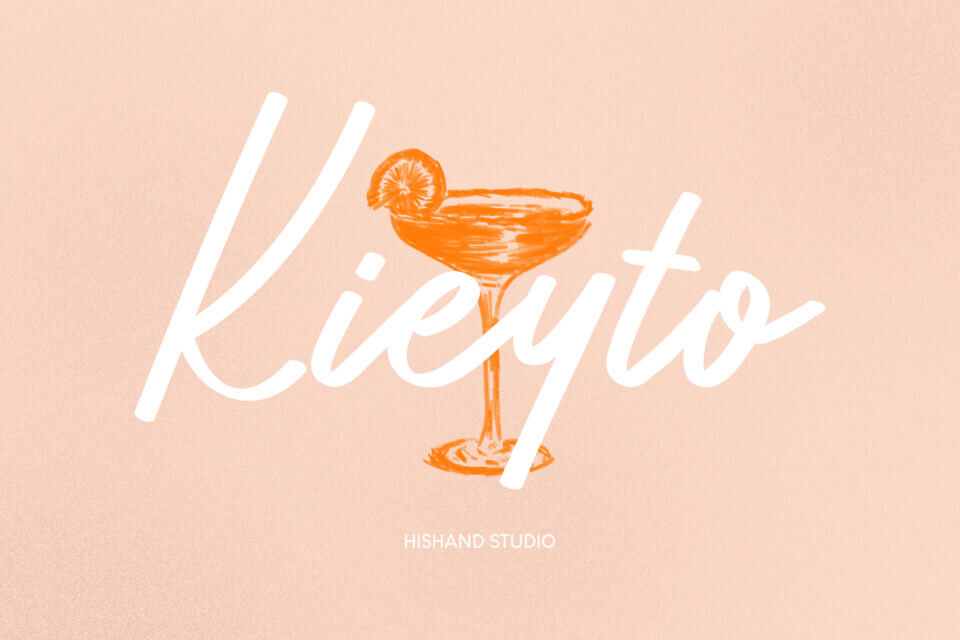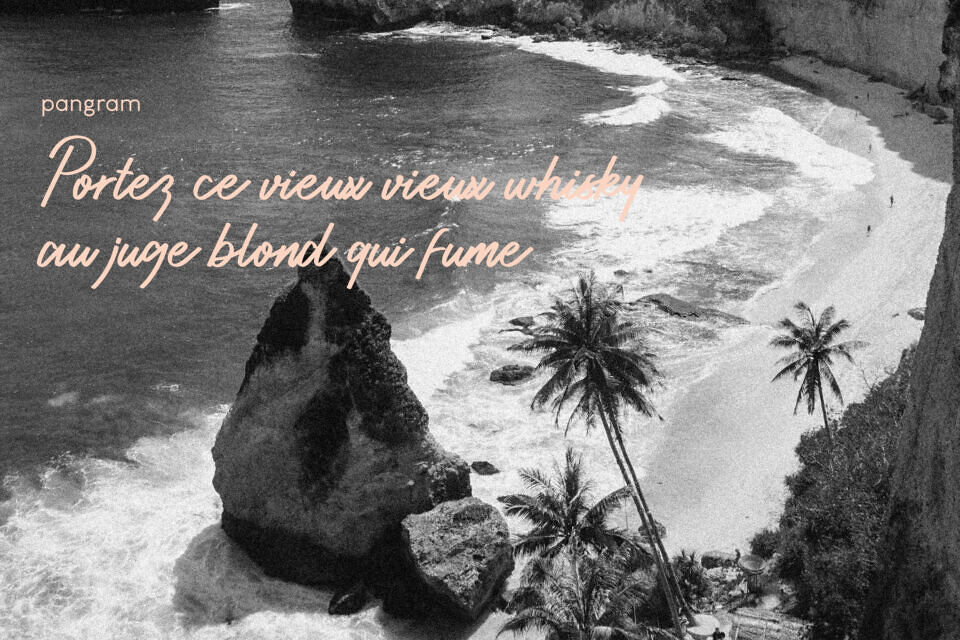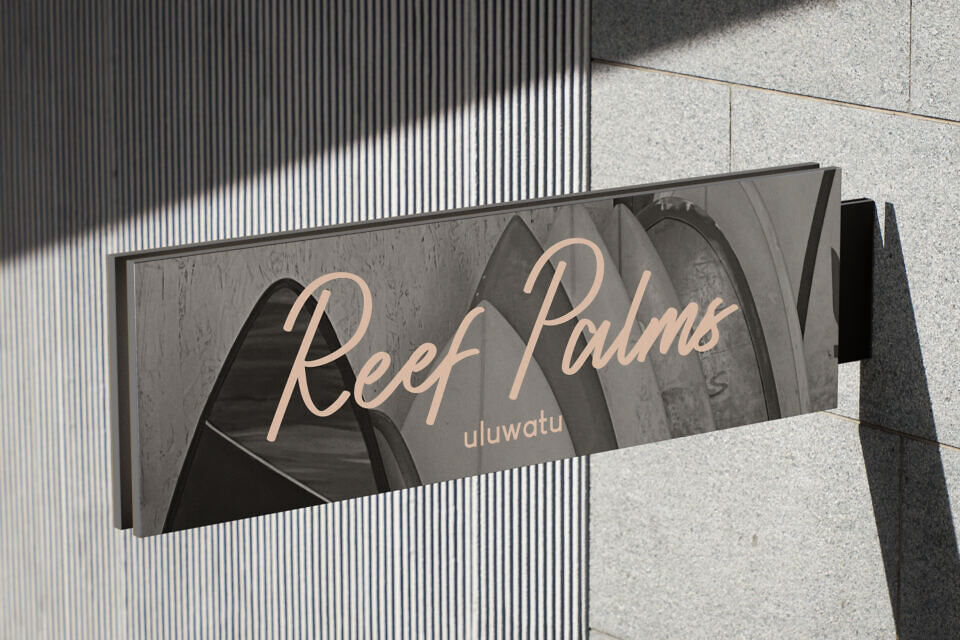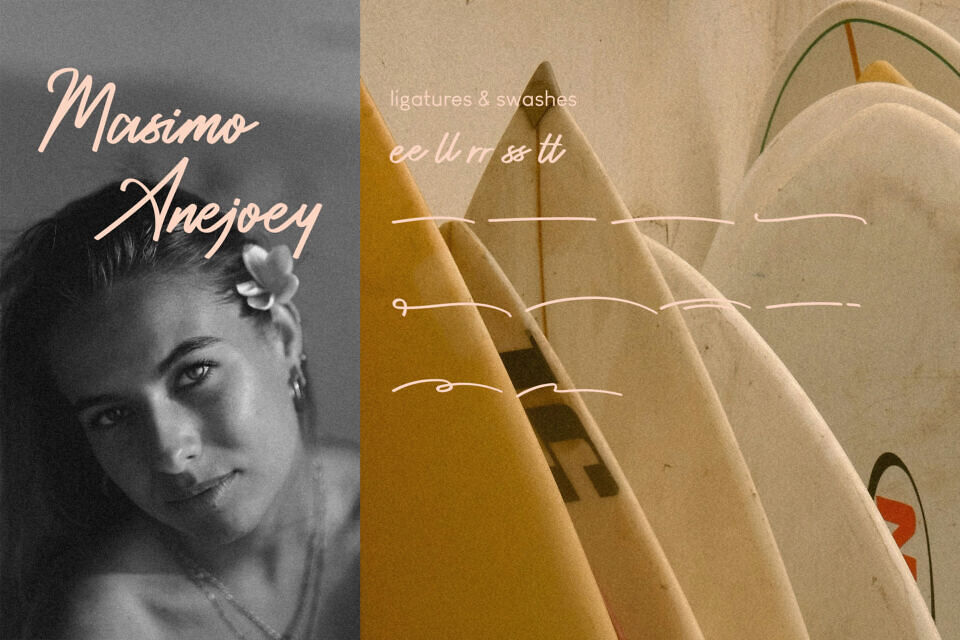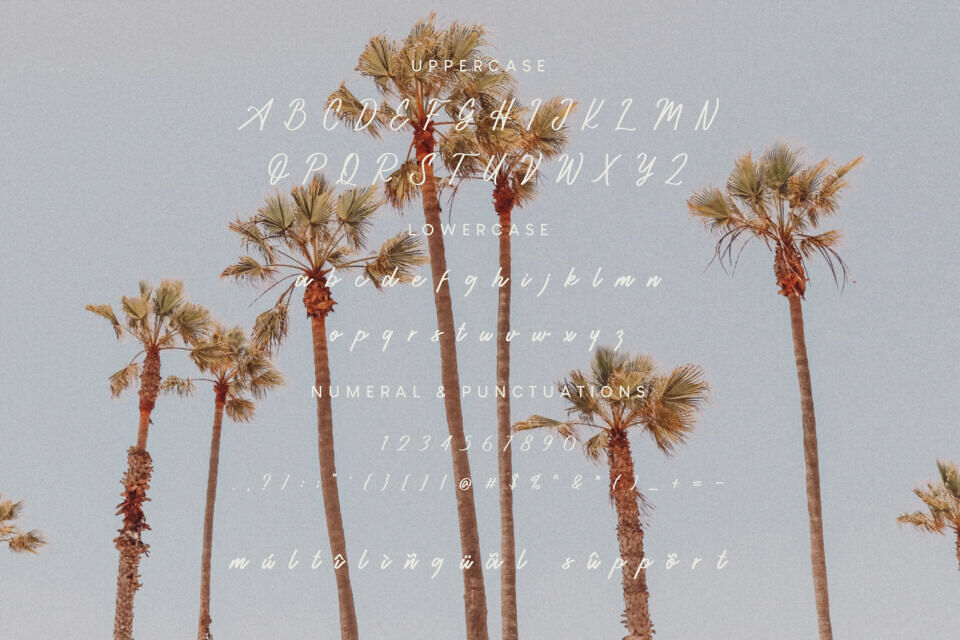
Kieyto Font
Kieyto is a handwritten script font with a relaxed and expressive style inspired by natural brush lettering. It is designed to reflect the flow and movement of hand-drawn strokes, resulting in letterforms that feel organic and visually engaging.
The smooth lines and gentle curves create a sense of ease, giving the typeface a warm and approachable character that works well across a wide range of creative projects. Rather than appearing strict or mechanical, Kieyto carries a natural rhythm that feels balanced and intentional.